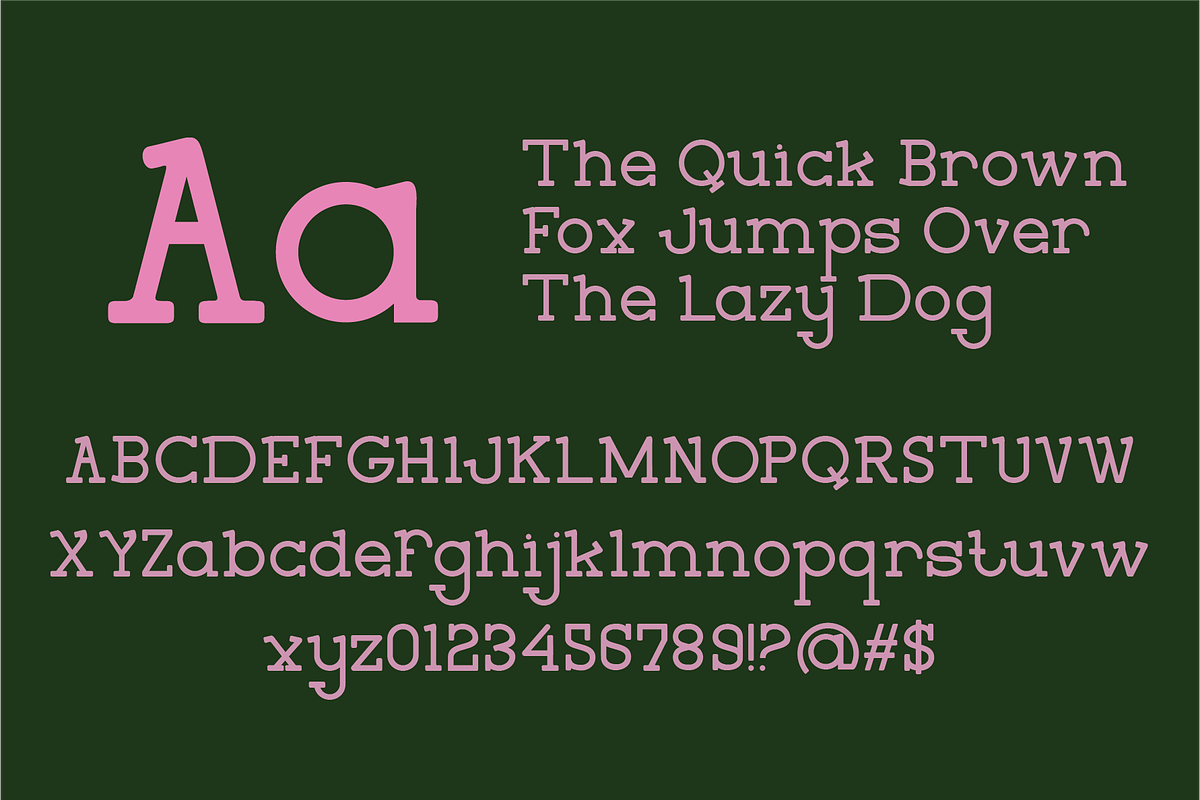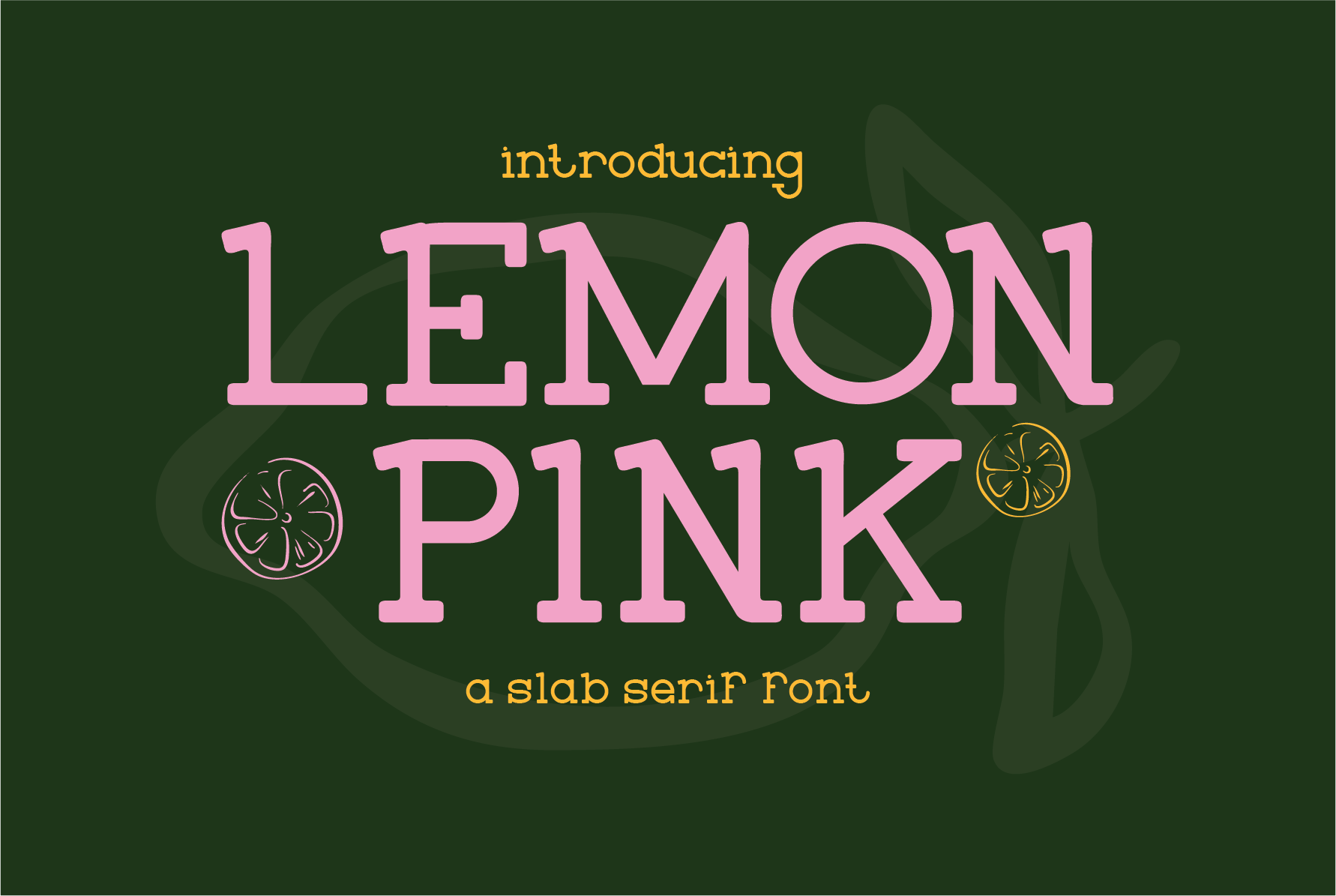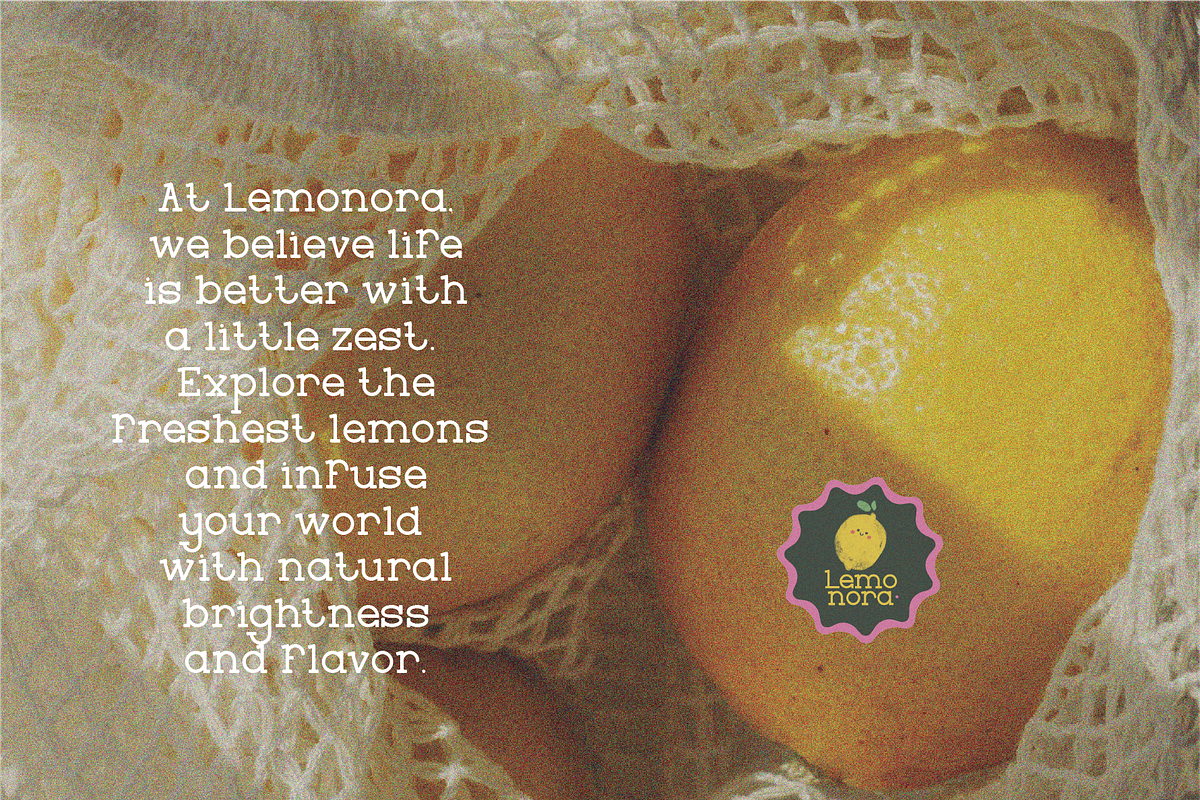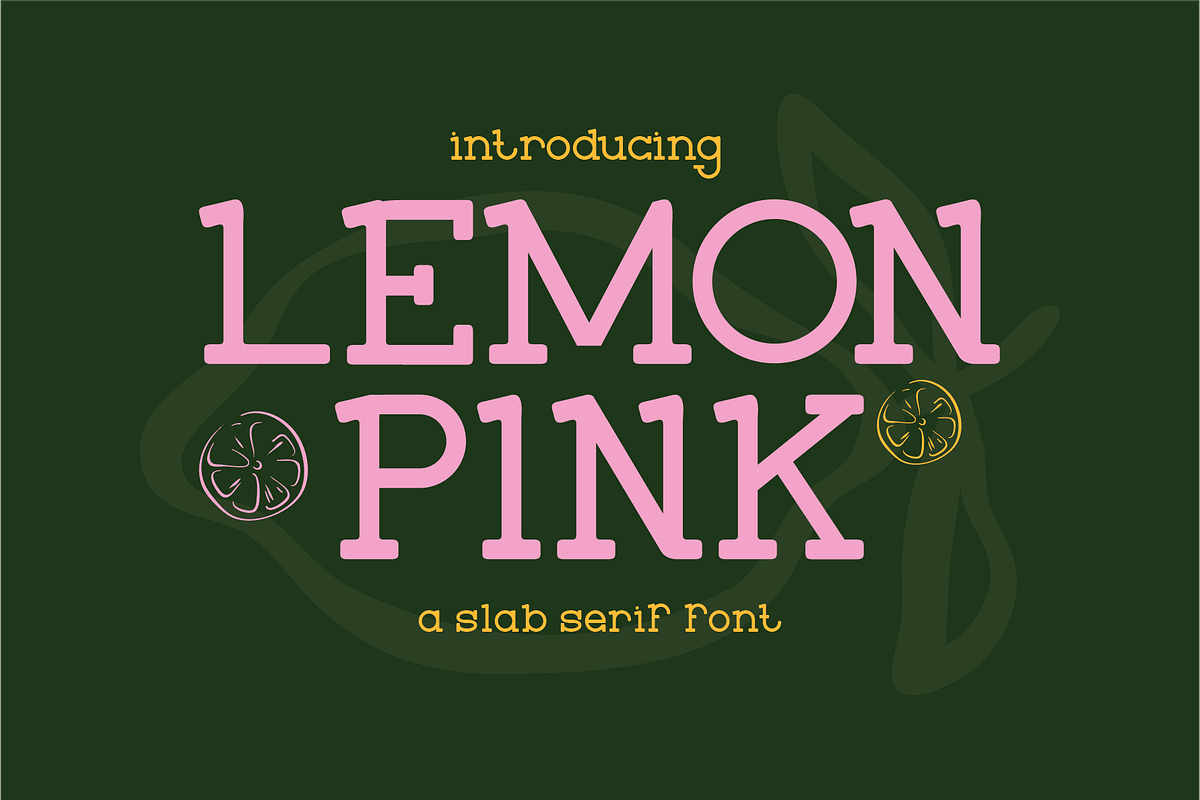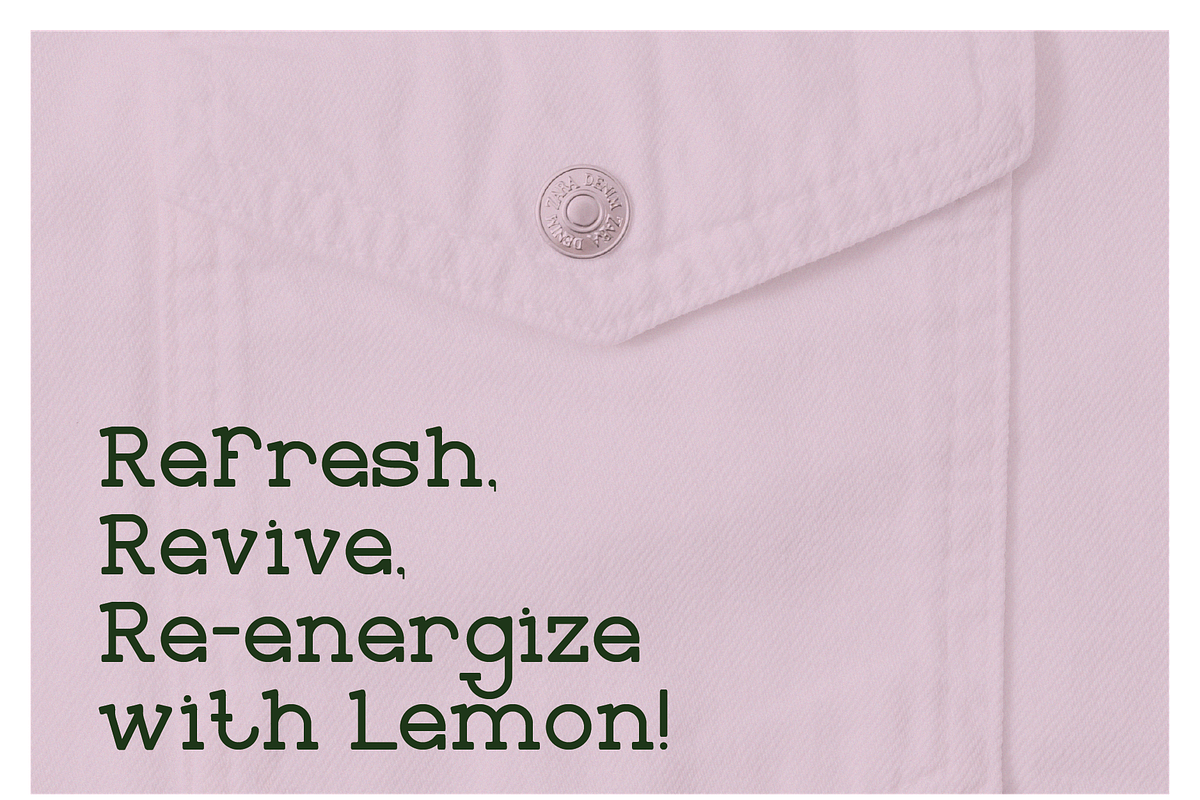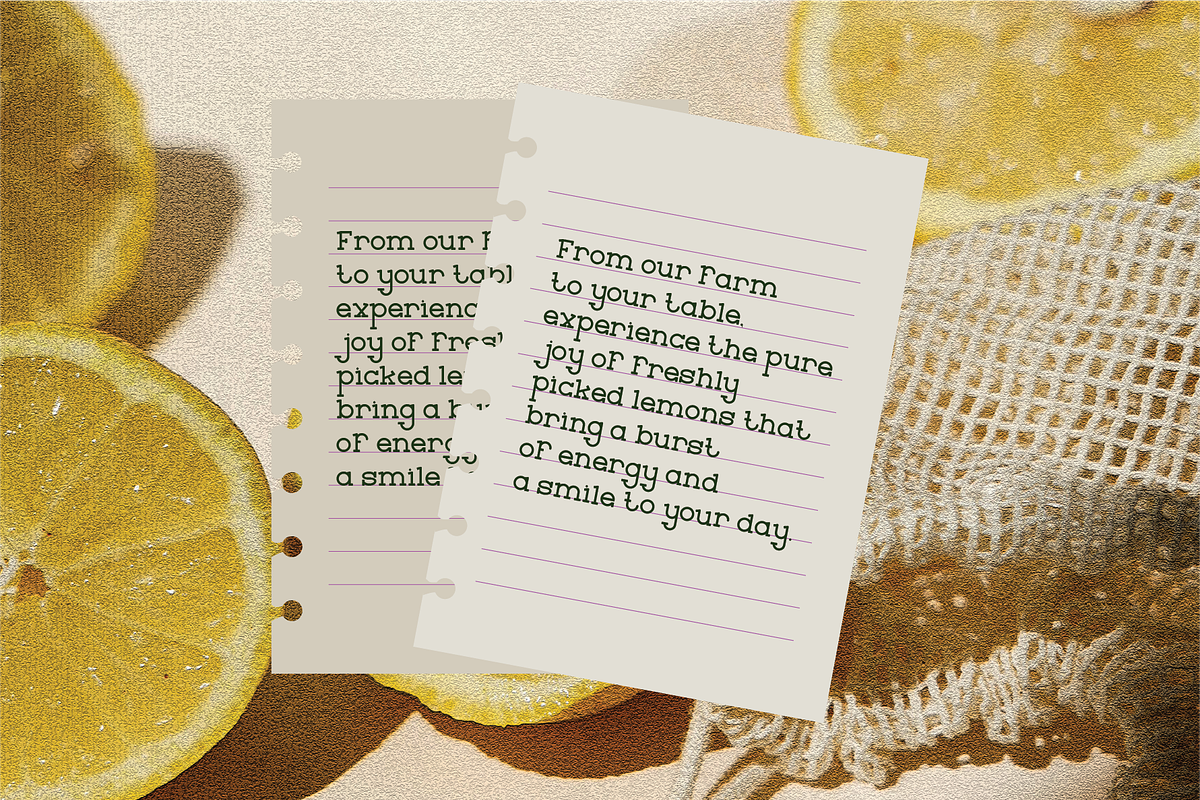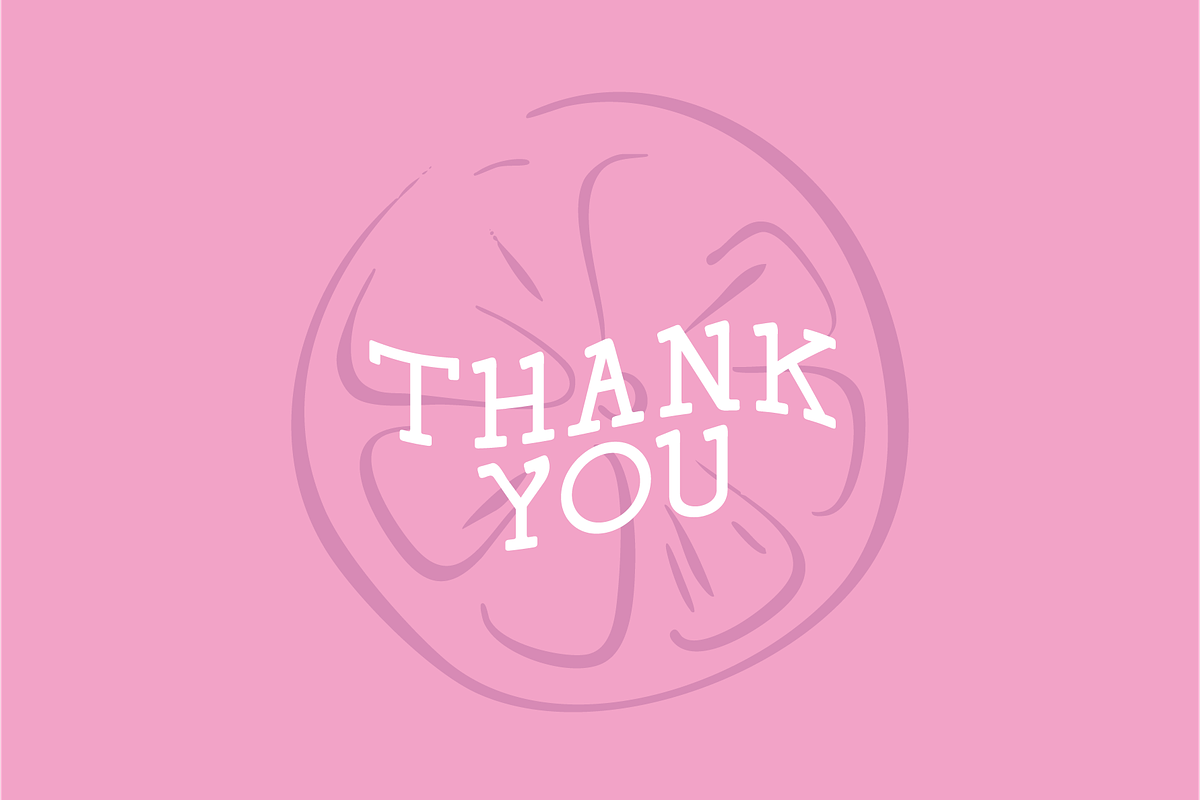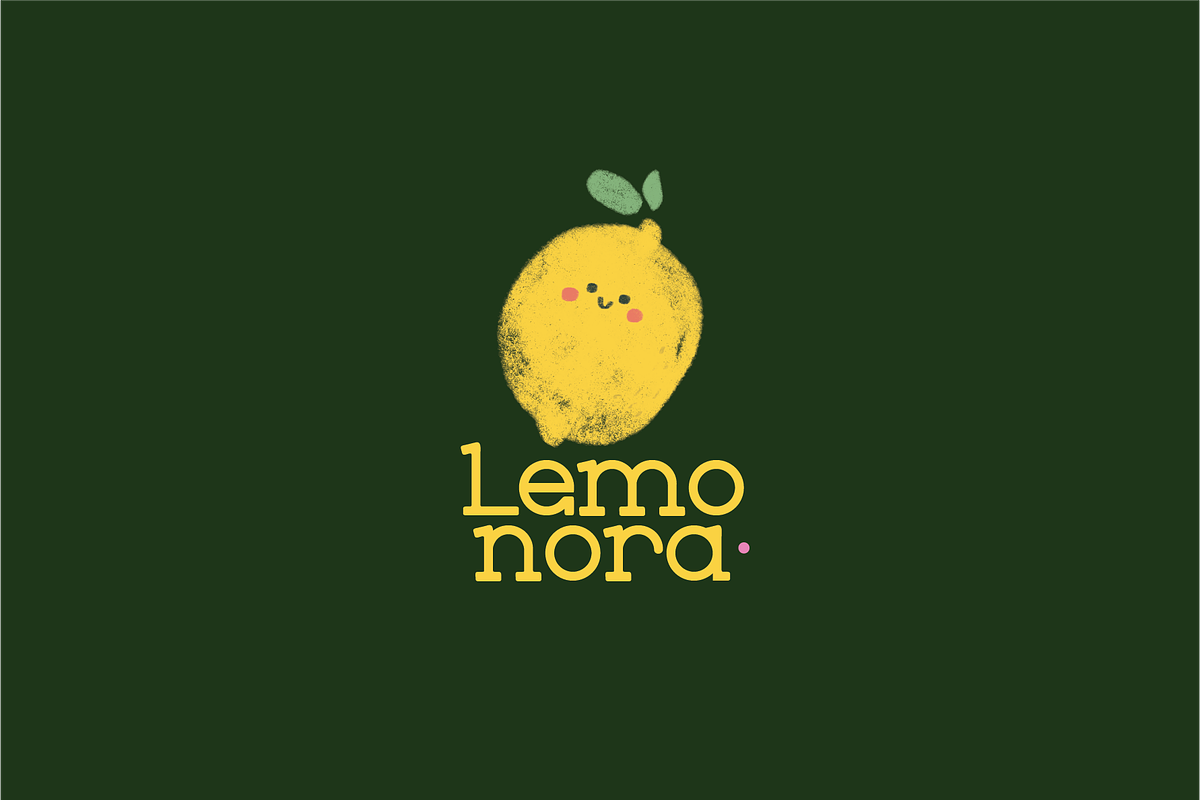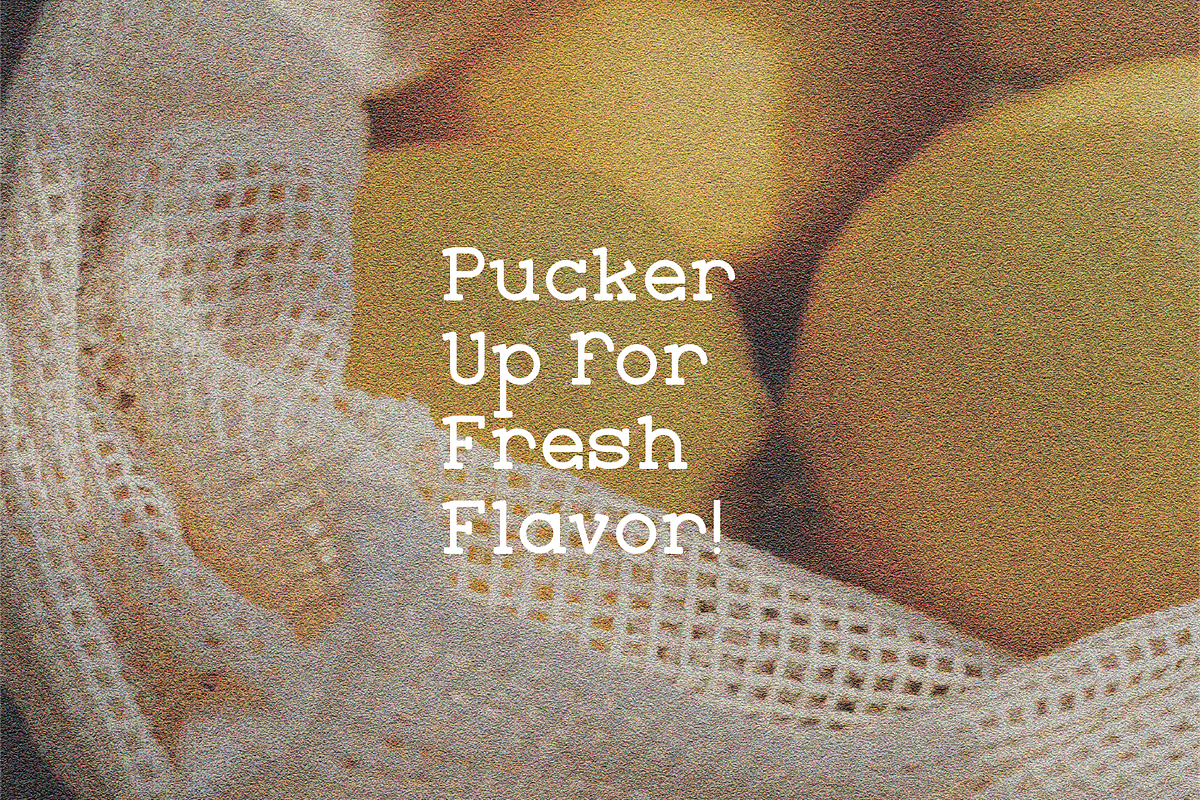
Lemonpink - Slab Serif Font
Lemonpink The font in this design is bold, geometric, and playful. The letters are strong and blocky, with a fun and vibrant feel, enhanced by the use of rounded corners.